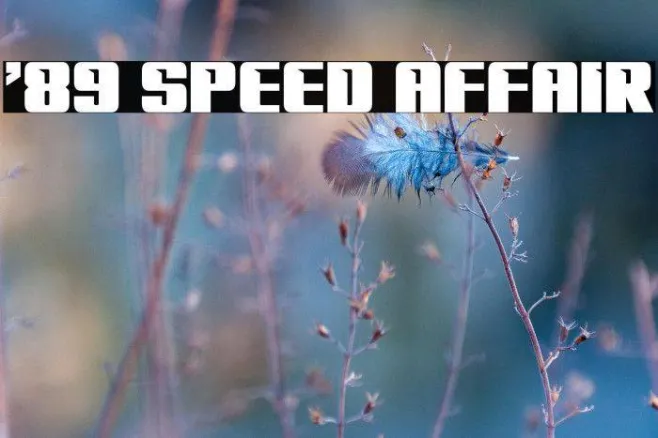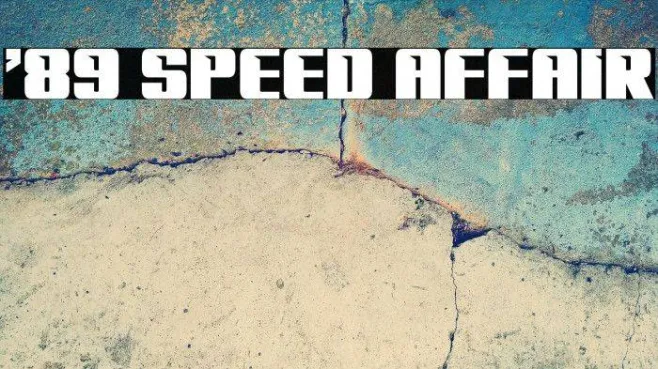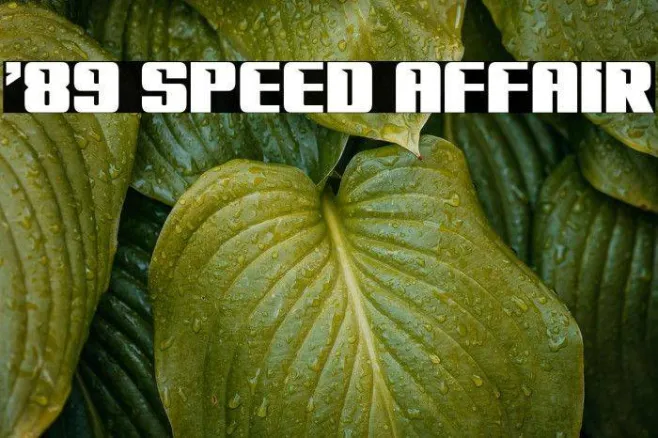
'89 Speed Affair Font
'89 Speed Affair Description
This font features a bold and striking design with a strong geometric structure. The characters are wide and blocky, with a consistent thickness throughout, giving it a powerful and modern appearance. The uppercase letters are particularly prominent, with sharp angles and a uniform height that creates a cohesive look. The numerals and special characters maintain this bold style, ensuring readability and impact. This font is ideal for making a statement, with its high visibility and distinctive style.
| Proposed Projects | Perfect for sports branding, automotive advertisements, or any project needing a bold and impactful typeface. |